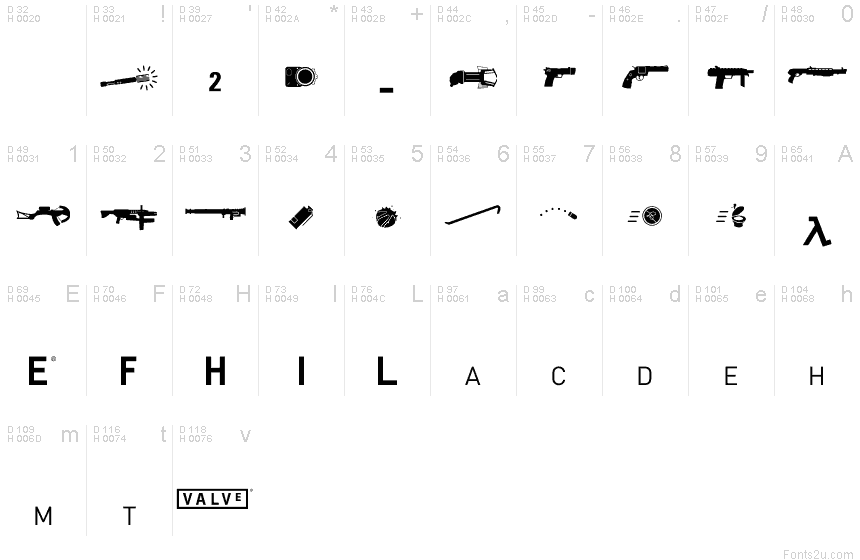
HL2MP
HL2MP font by Valve Corporation is a free military dingbat typeface. Its crisp black silhouettes of rifles and tactical gear land on the page like stamped metal, giving your layouts a gritty, utilitarian edge without a single line of copy. The icons feel stripped-down and mechanical, making them easy to read at a glance in fast-moving interfaces or high-impact graphics.
Using HL2MP, you can quickly kit out game HUDs, launcher screens, clan logos, airsoft or paintball branding, event posters, tech infographics, and stream overlays with consistent military iconography. This free font works best when set large and bold; pair it with a neutral sans serif for text to keep the icons doing the heavy visual lifting.